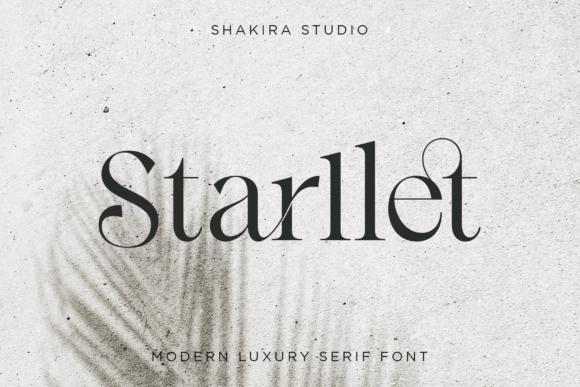
Starllet - Glamorous Script Font for Wedding & Beauty Projects
Starllet is a luxury serif font featuring elegantly contrasting strokes, refined curves, and decorative terminals — ideal for creating striking headlines, elegant logos, and classy print or digital designs. Its design balances timeless serif tradition with a modern sense of style, making it suitable for both vintage‑chic and contemporary branding or stationery projects.
Whether you’re designing wedding invitations, boutique packaging, greeting cards, holiday promos, or high-end branding, Starllet brings sophistication and visual impact. With support for broad character sets and decorative glyphs, it’s a versatile typeface for designers who want beauty, readability, and a touch of vintage glamour.
- Logos and brand marks for boutique, fashion, luxury or artisanal businesses
- Wedding invitations, save‑the‑date cards, greeting cards, holiday stationery
- Product packaging, labels, tags — especially for premium or gift items
- Posters, flyers, social‑media graphics, web headers with elegant serif typography
- Business cards, letterheads, printable art, and decorative printables
- Holiday, event or seasonal designs — e.g. festive cards, marketing flyers, promotions
- Full Latin character set — uppercase, lowercase, numbers, punctuation, basic glyphs
- Regular style (and possibly Italic, depending on the download package) — display ready for headlines or decorative text
- Elegant serif style — adds sophistication, class, and a touch of vintage charm to your designs
- Versatile — ideal for luxury branding, wedding stationery, packaging, editorial print or digital projects
- High readability and visual balance — works for both large headlines and decorative use
Q: Is it suitable for body text or long paragraphs?
A: Not really — Starllet is best used for display, headlines, logos, invitations, packaging, or decorative text rather than long-form body copy. -
Q: Does the download include bonus glyphs, ligatures, or decorative alternatives?
A: Yes — Starllet is PUA‑encoded, meaning you have access to additional glyphs and ligatures which can enhance decorative or stylized typography for logos, headings or invitations.
| Feature | Starllet | Generic Clean Serif | Generic Minimal Sans‑Serif |
| Font Style | Luxury serif with contrasting strokes and decorative terminals | Neutral serif — classic and simple | Minimal sans‑serif — clean, modern, neutral |
| Best Use | Logos, invitations, packaging, luxury branding, headlines | Books, editorial content, body text, professional print | Web interfaces, modern branding, clean design, body or heading text |
| Readability at small size / body text | Moderate — best for larger sizes, headlines, display use | High — good for body text or long paragraphs | High — good for web or UI text, clean layouts |
| Visual Vibe | Elegant, classy, vintage‑chic, luxurious | Traditional, timeless, classic | Modern, minimal, clean, neutral |